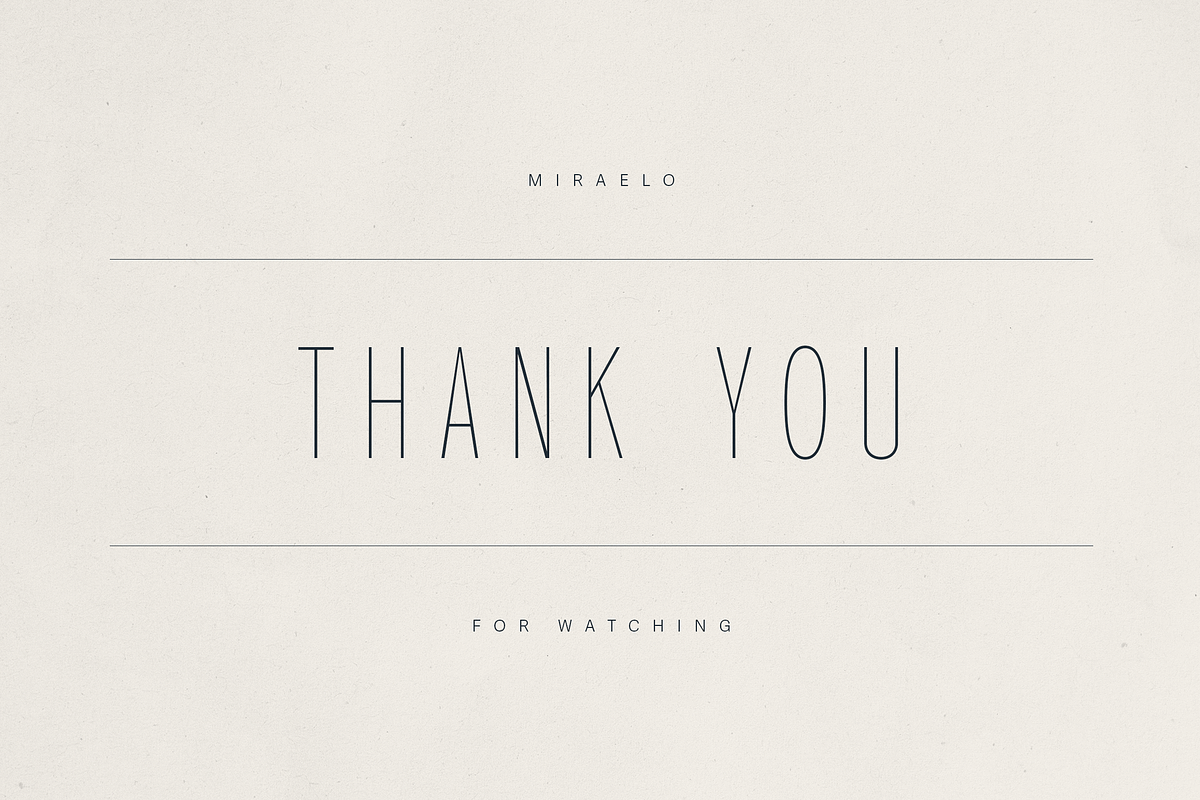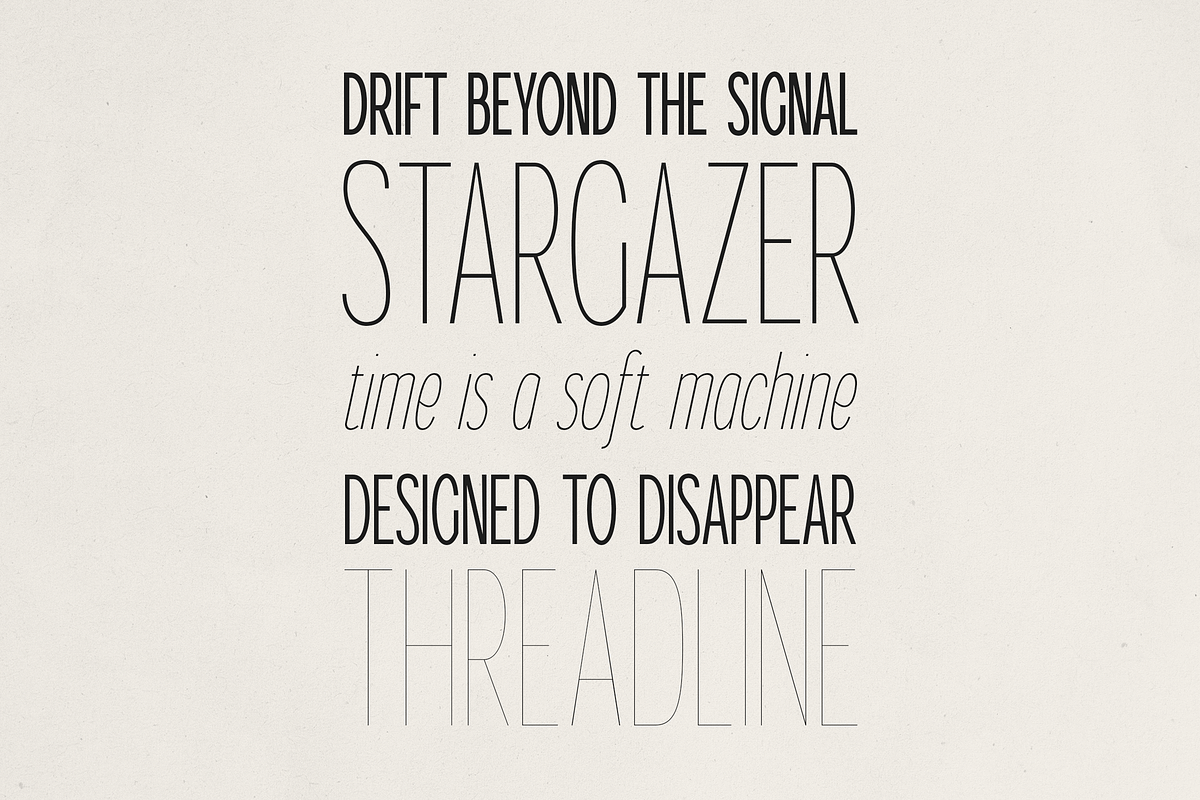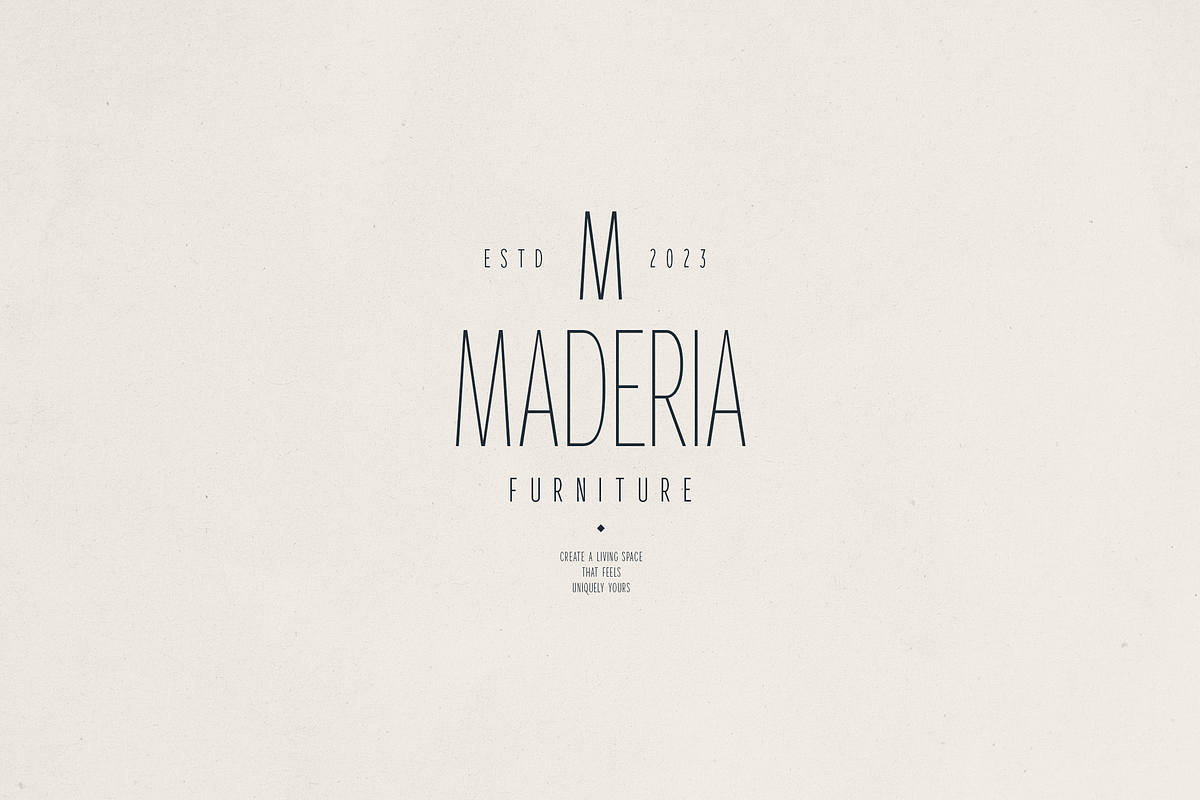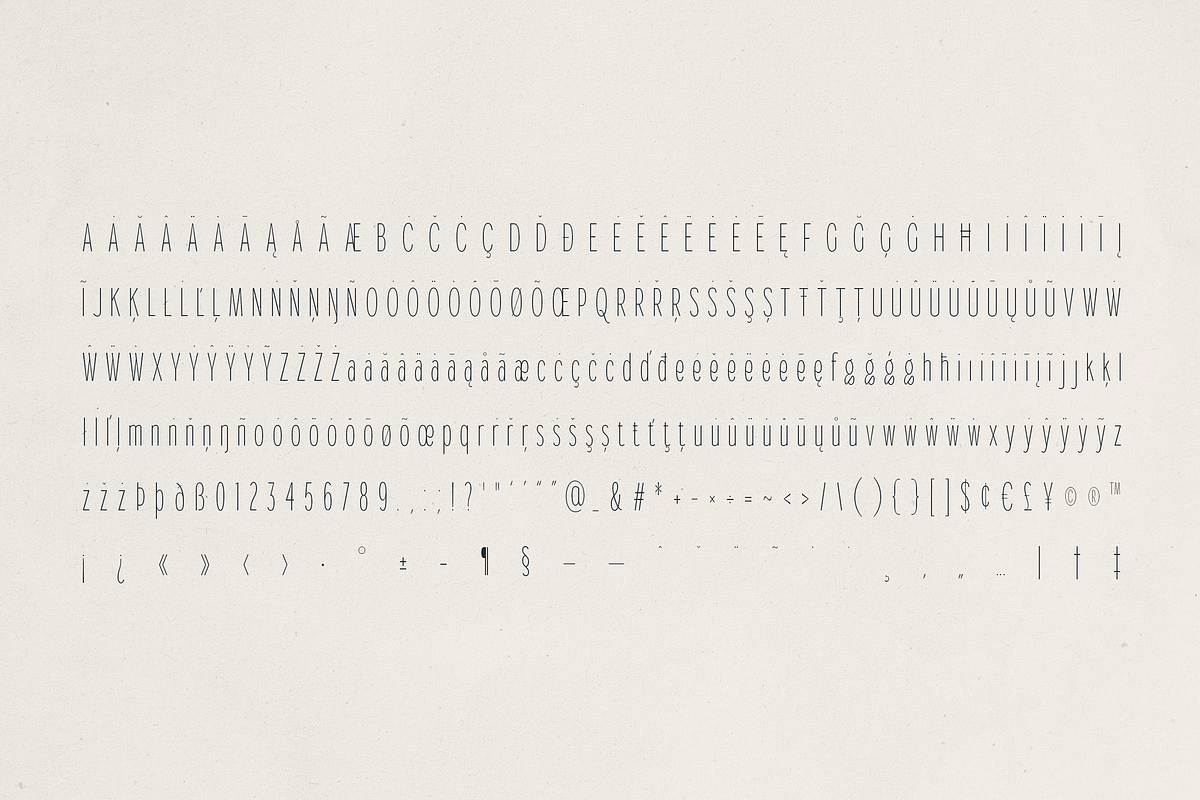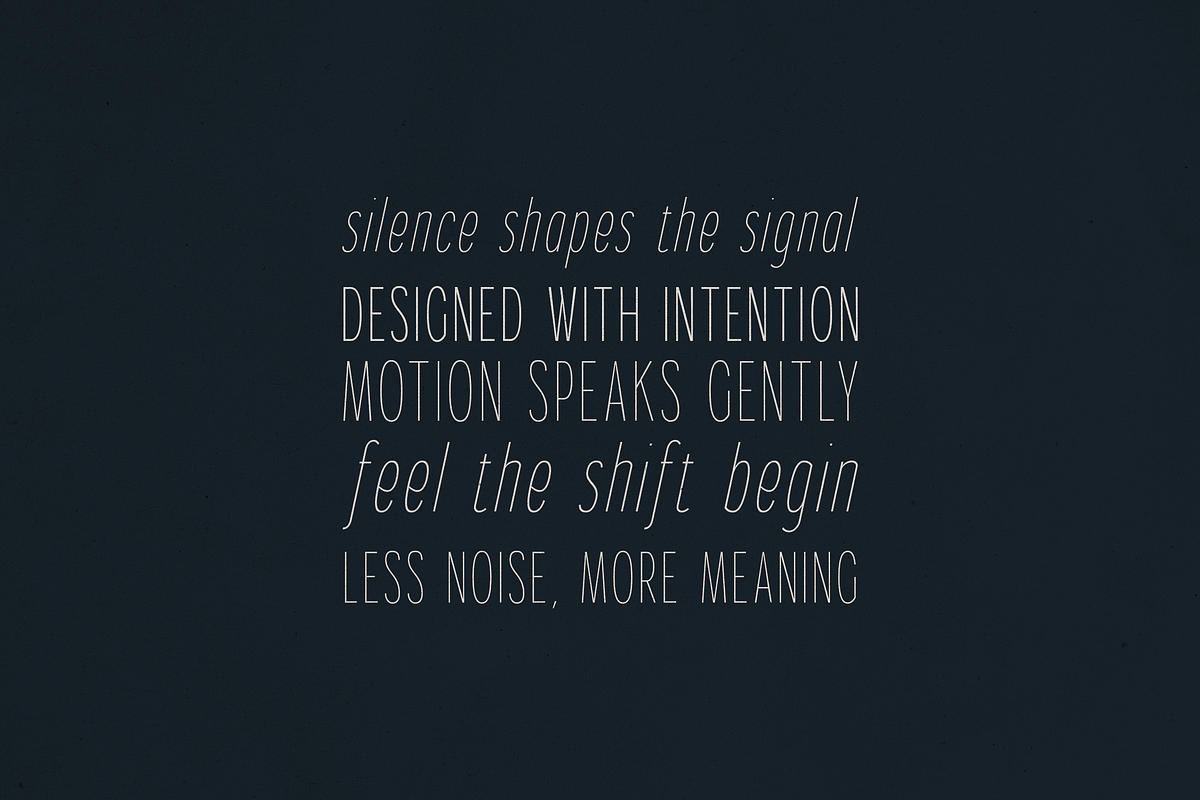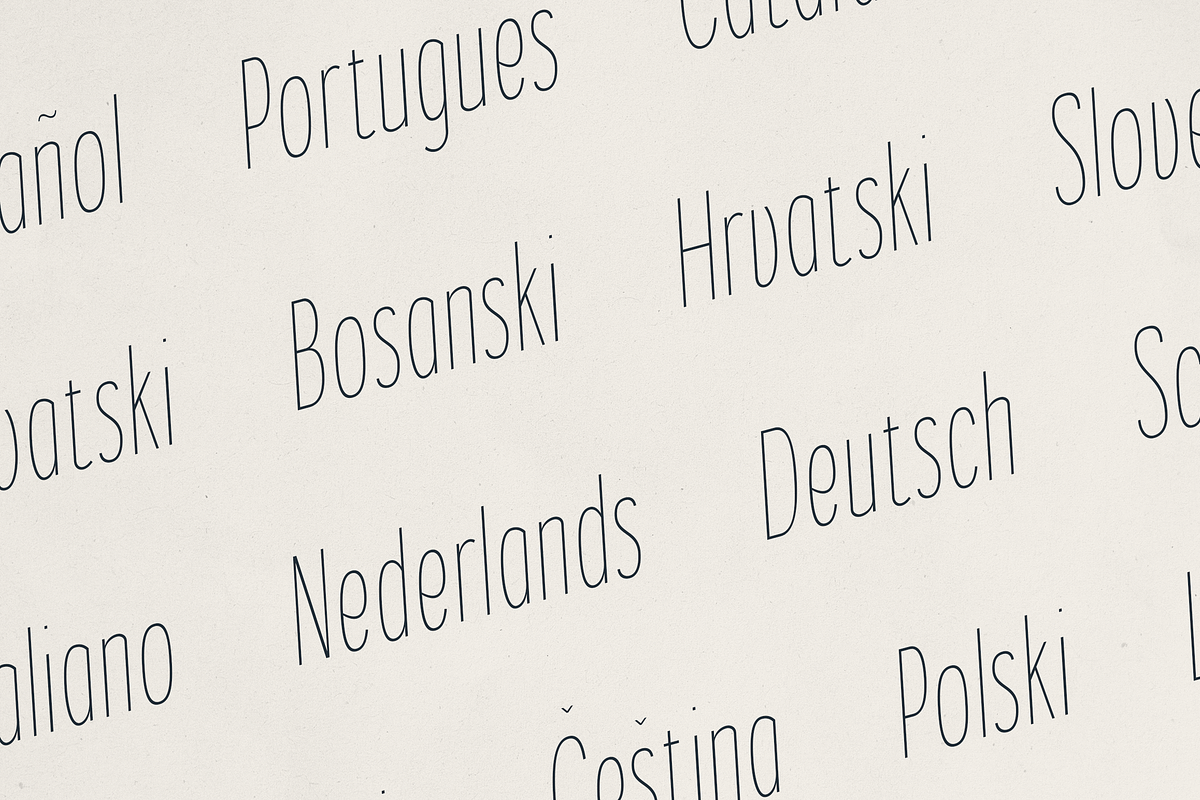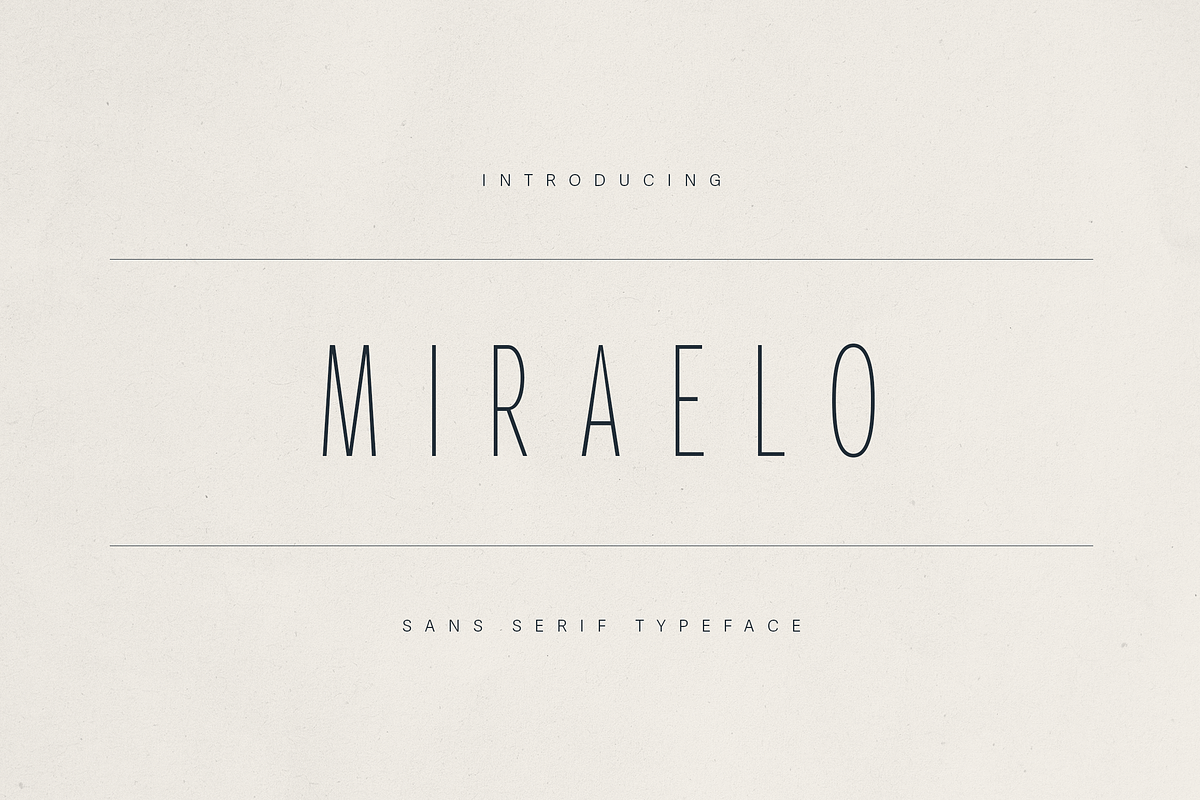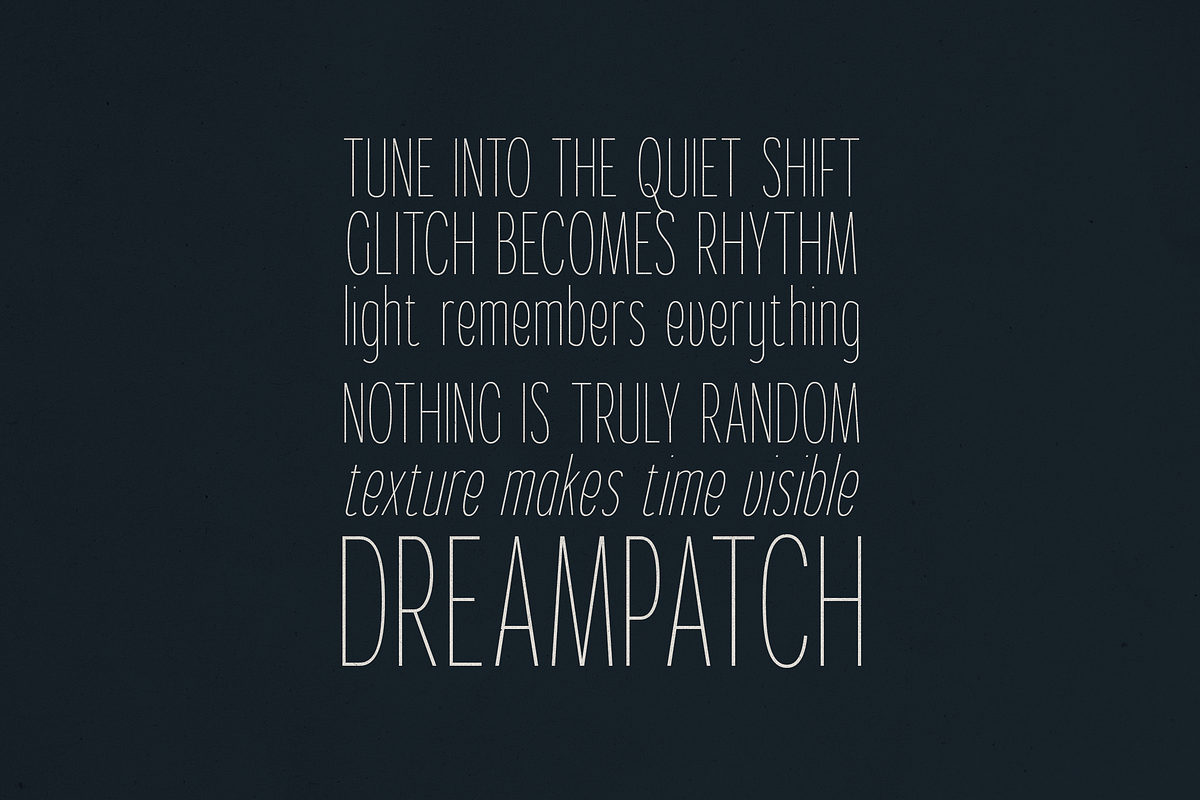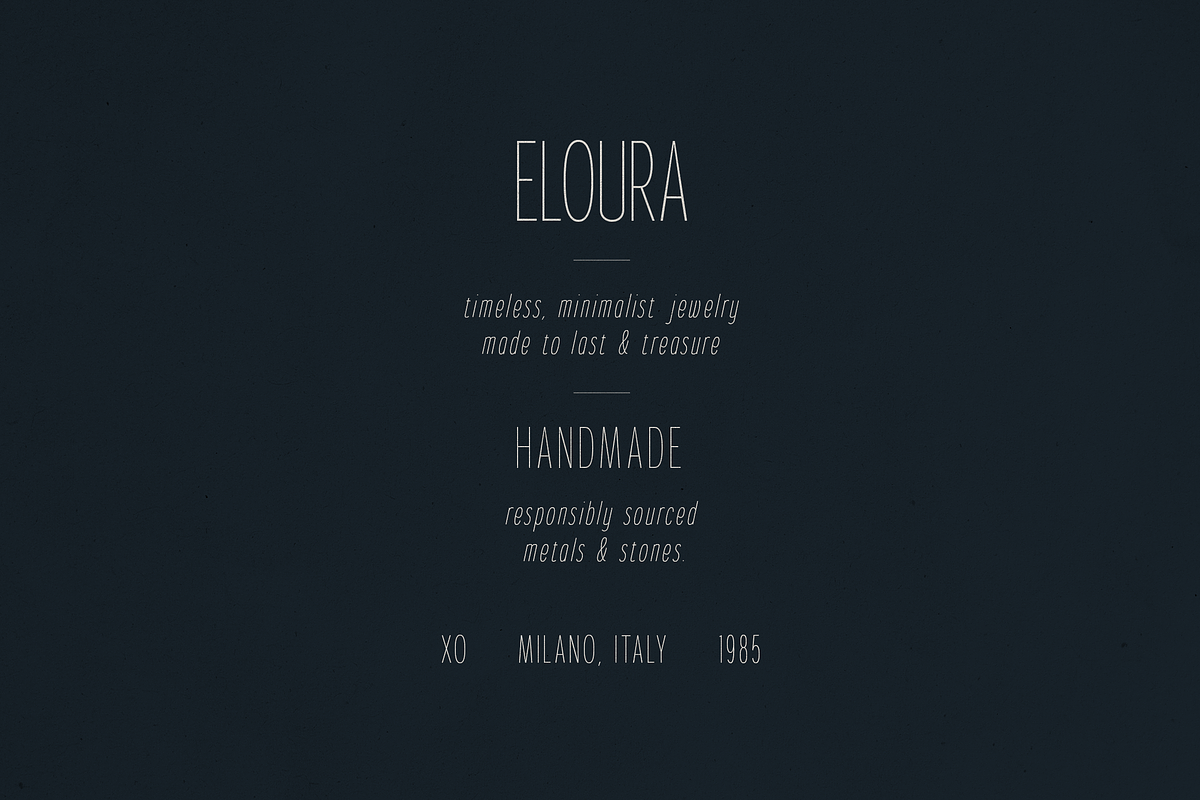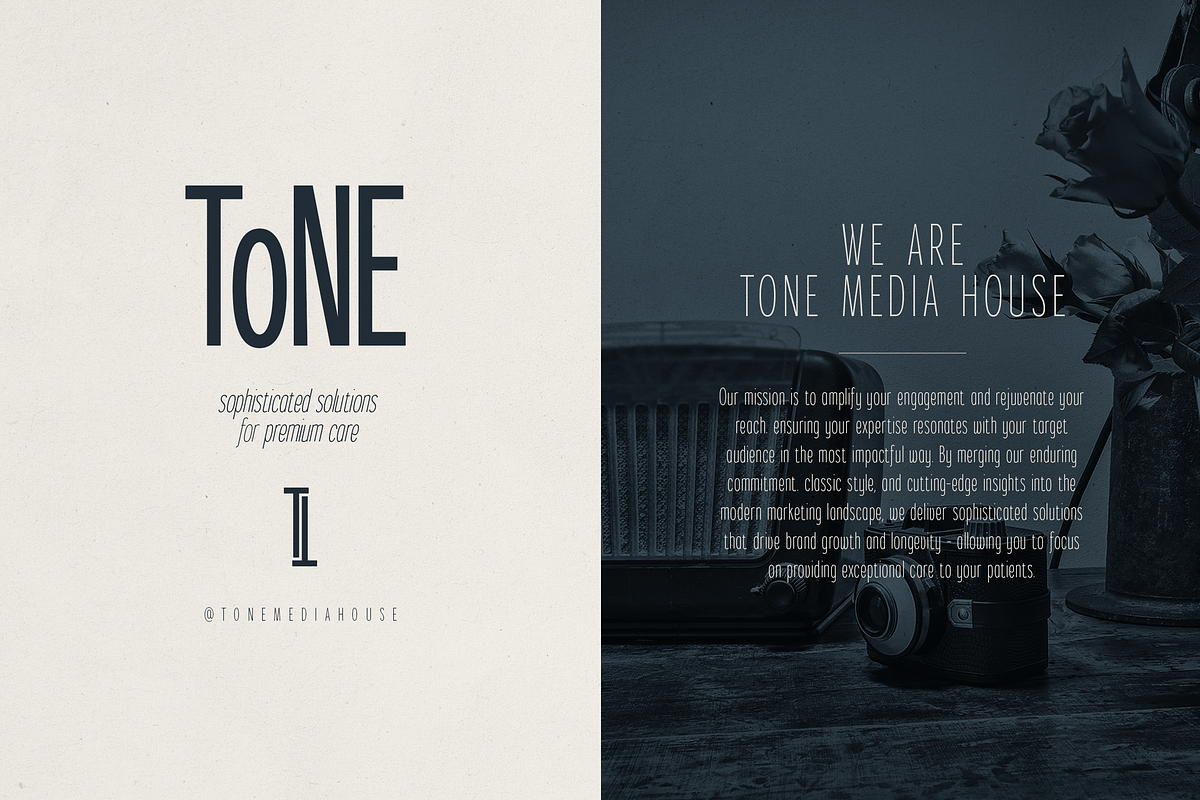
MIRALEO – Elegant Modern Sans Serif
Introducing MIRALEO, a refined sans serif typeface crafted for brands, creatives, and designers who seek clarity with character. With a tall, minimalist posture and whisper-thin curves, MIRALEO evokes elegance, sophistication, and thoughtful restraint—perfect for modern branding, editorial layouts, luxury packaging, and digital content that demands quiet confidence.
- 6 carefully tuned weights: Hairline, Light, Regular, Semibold, Bold, Black
- Matching true italics for each weight
- Multi-language support (Latin Extended)
Design Vibe:
MIRALEO draws inspiration from high-end fashion editorial, heritage branding, and understated art direction. Whether you're crafting a luxe cosmetics label, building a clean UI, or creating poetic magazine layouts, MIRALEO adapts beautifully—especially in uppercase or spacious layouts.
Ideal For:
- Premium branding & logos
- Editorial & magazine design
- Social media graphics & quotes
- Minimalist packaging
- Wedding and stationery design
- Art prints, moodboards, and storytelling visuals